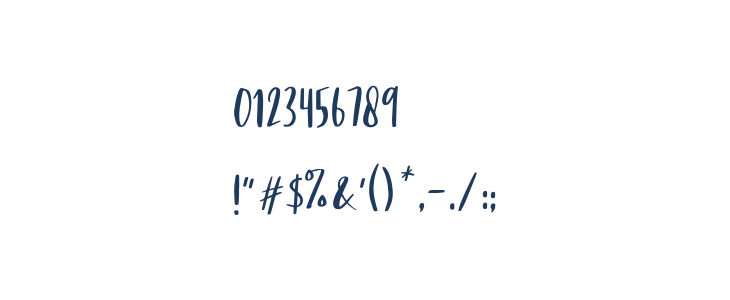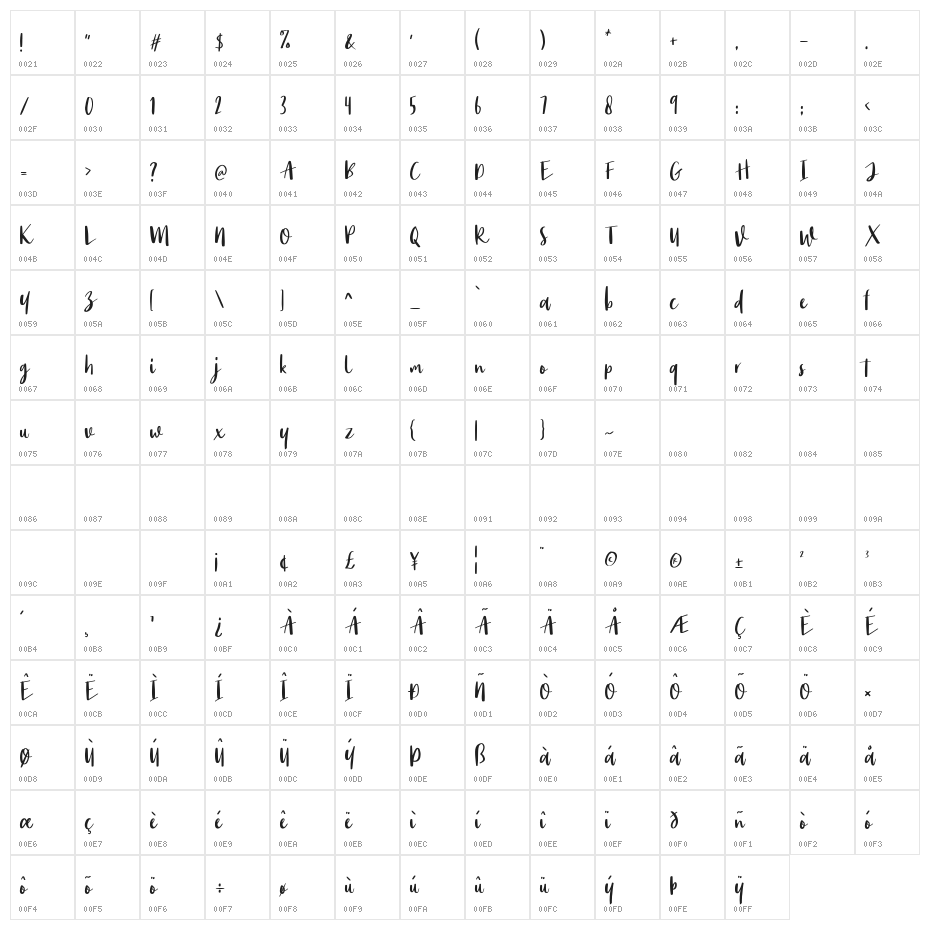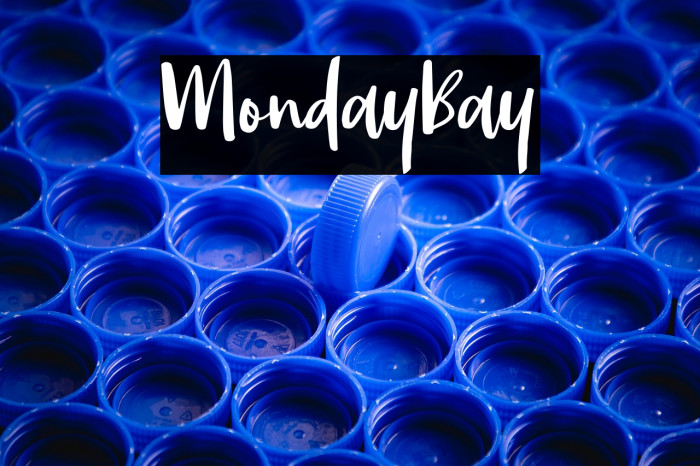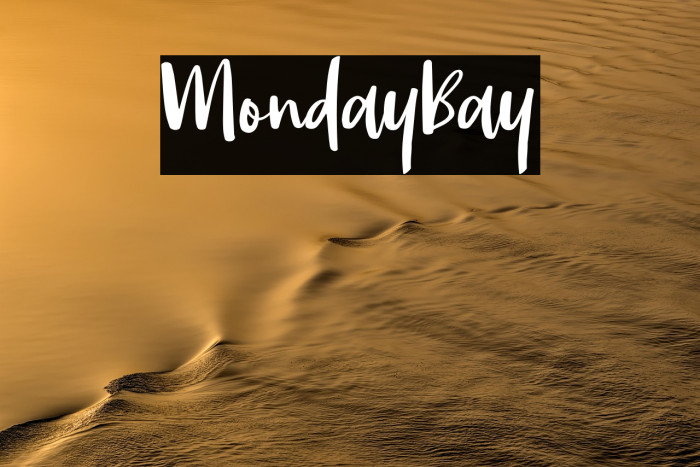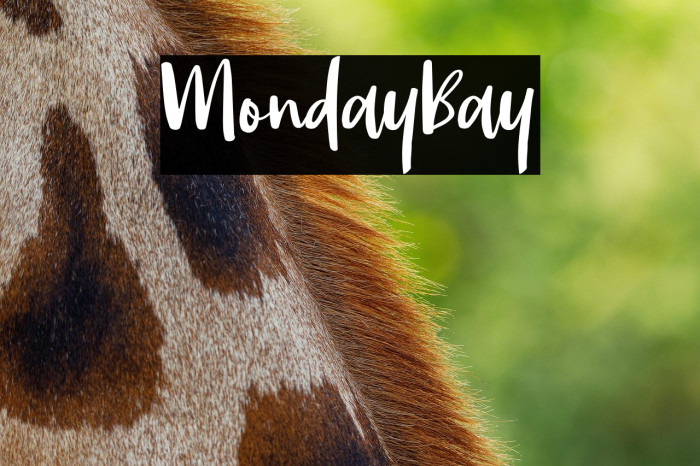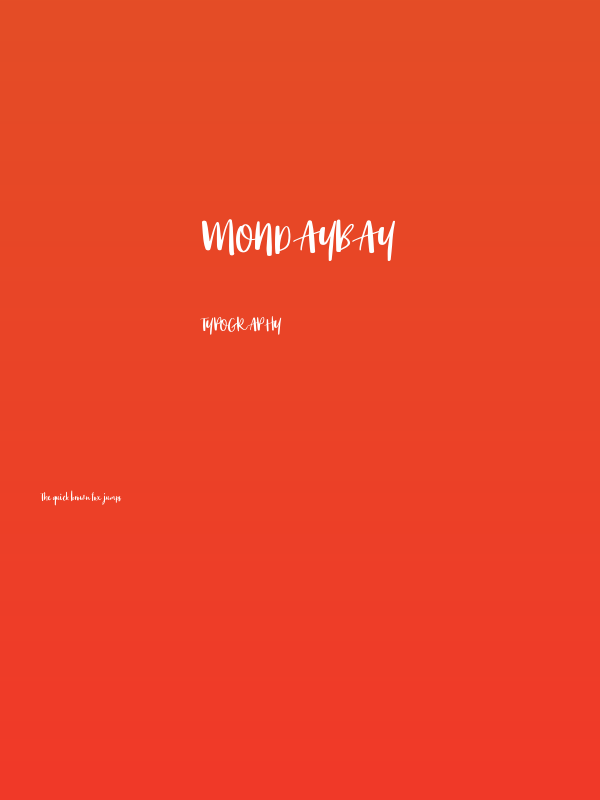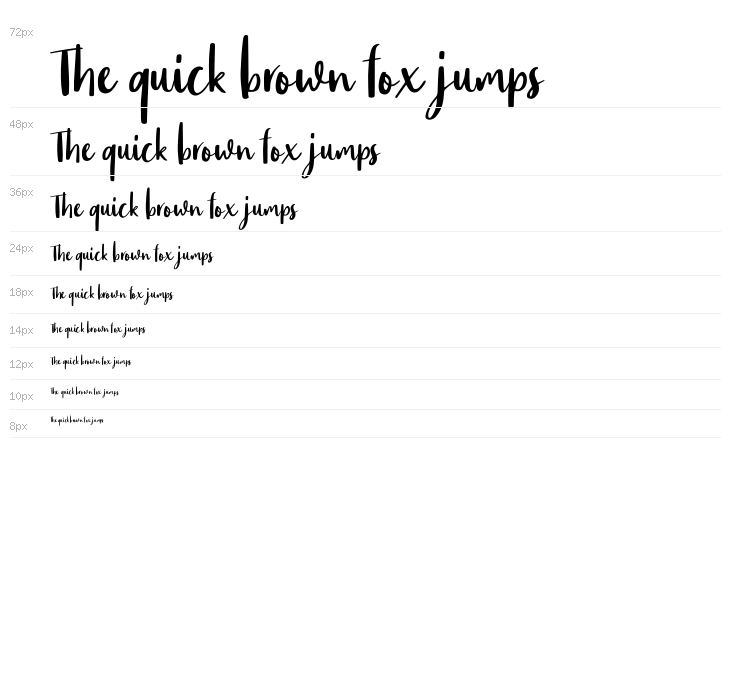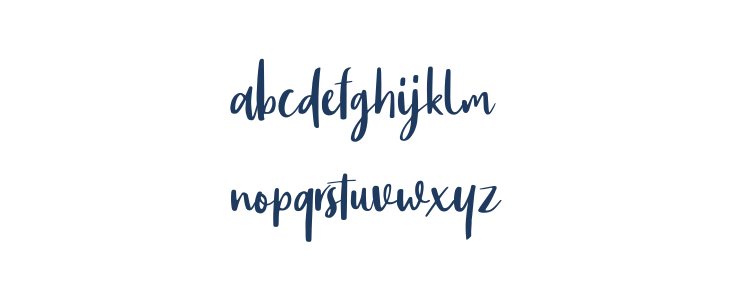
MondayBay Font
MondayBay Description
This font features a dynamic and expressive handwritten style, characterized by its fluid and natural strokes. The letters exhibit a playful and casual aesthetic, with varying thickness that adds a sense of movement and energy. The uppercase letters are bold and prominent, while the lowercase letters maintain a consistent flow, enhancing readability. Numbers and special characters are crafted with the same lively spirit, making them suitable for creative and informal designs. The overall appearance is both modern and artistic, perfect for projects that require a personal touch.
| Use Case | Logos, Headlines, Social media graphics |
| Proposed Projects | Ideal for greeting cards, invitations, branding, social media graphics, and any project that benefits from a personal, artistic touch. |